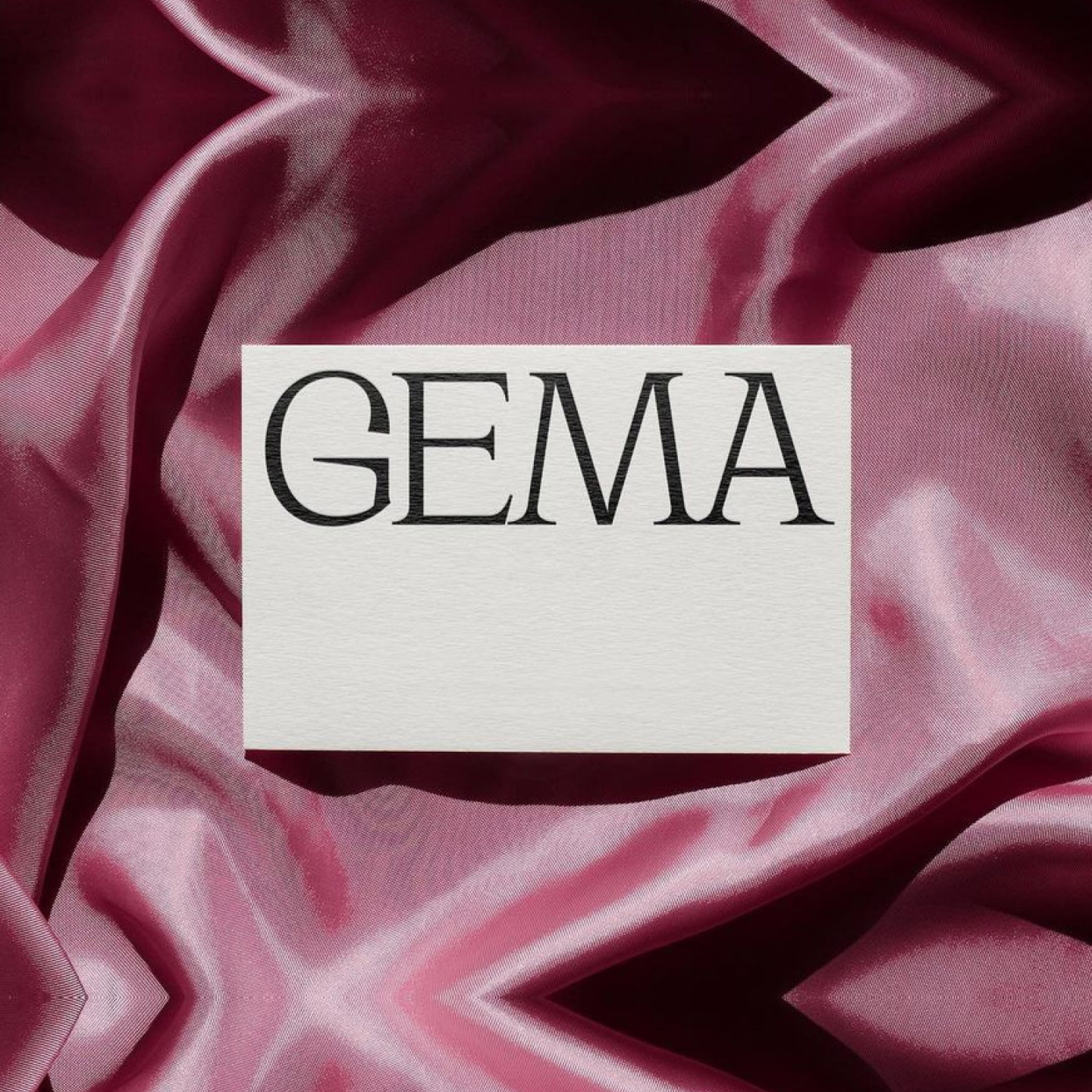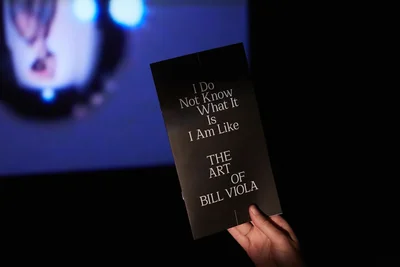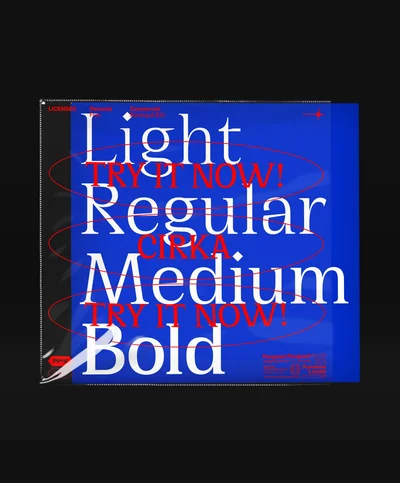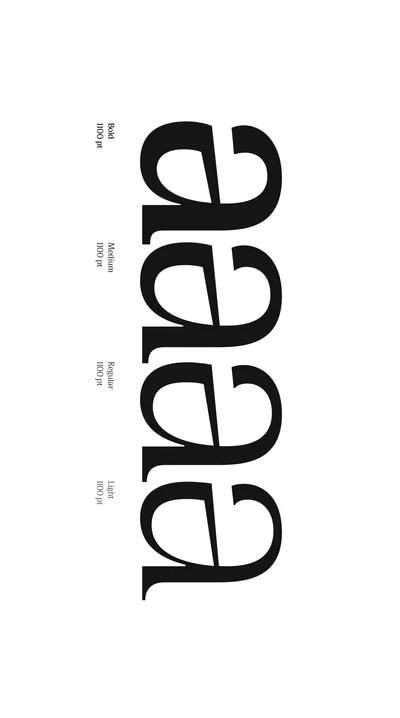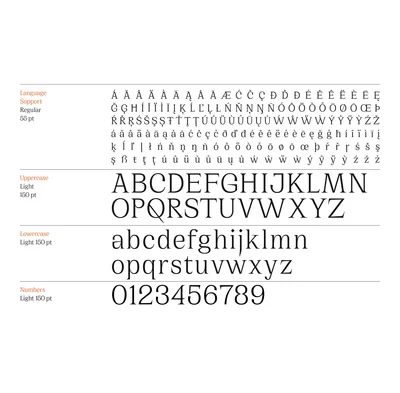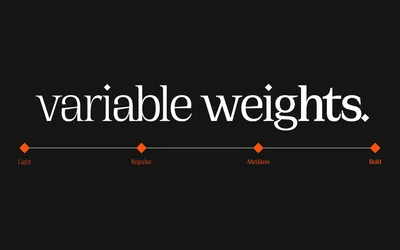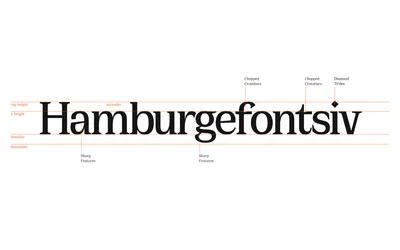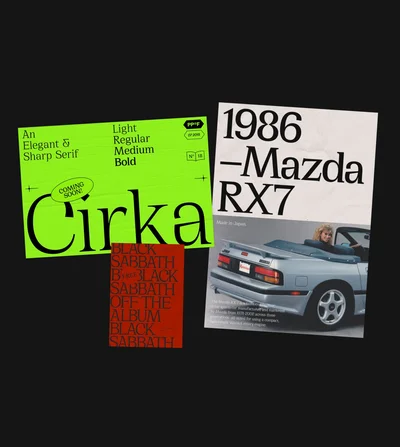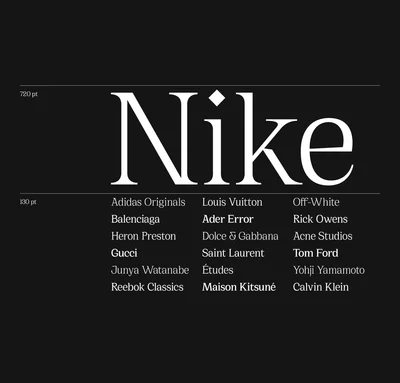
Blanco vs Cirka
Blanco and Cirka are both serif typefaces sharing a modern foundation. Where Blanco leans readable, Cirka brings minimal. Compare which suits your Editorial project.
Blanco
Cirka
Blanco
Cirka
Typography for magazine design, periodicals, and print publications. Magazine fo...
Typography for fashion brands, style publications, and luxury apparel. Fashion f...
Recommended: Blanco
- readable design character
- Suited for Magazines and Books
Consider: Cirka
- minimal design character
- Suited for Branding and Luxury